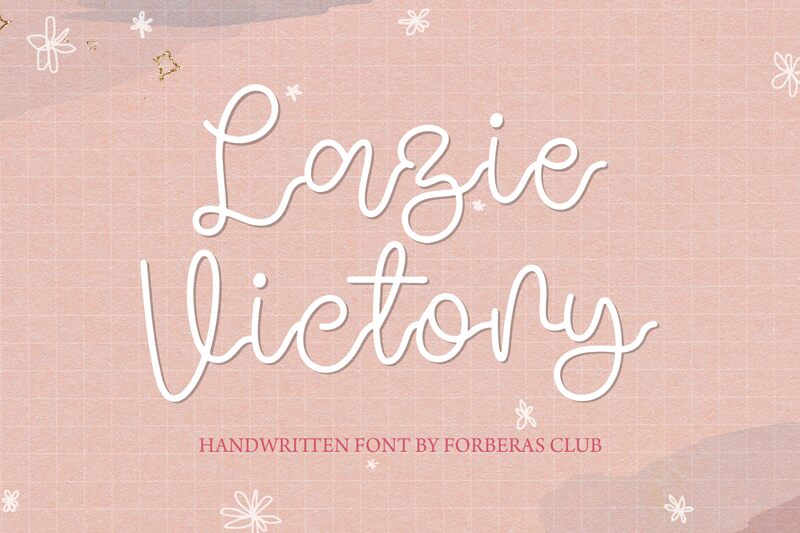
Lazie Victory is a stunning extra-light handwritten font designed by Forberas Club. It's perfect for adding a touch of whimsy and creativity to your projects. Whether you're working on invitations, posters, or branding materials, this font will make your designs stand out. Its playful style and delicate strokes give it a unique charm that's sure to catch the eye. Use it for anything from children's books to fashion magazines, and watch as your work comes alive with Lazie Victory. Don't miss out on this beautiful typeface that will bring joy and character to any project you use it for!
Lazie Victory